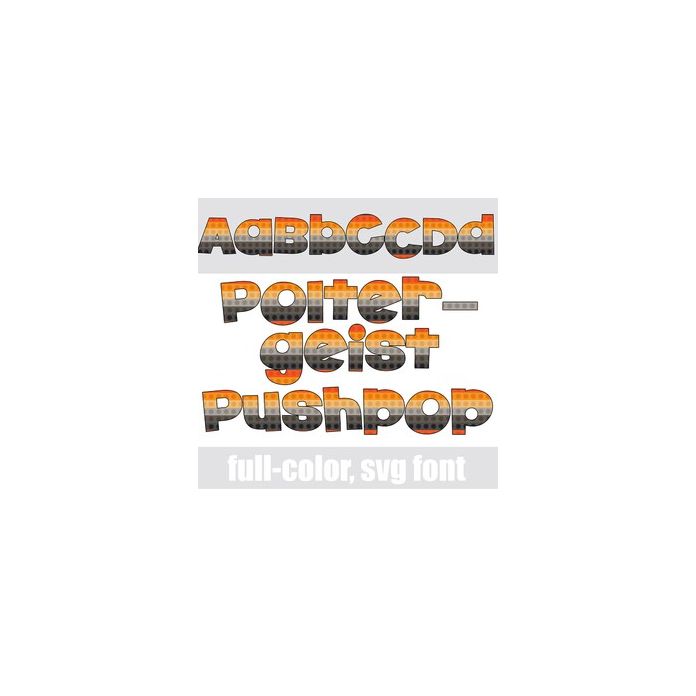
This full-color font features pushpops in a Halloween color palette. There is an alt case w/ additional colors you can access through your system or Silhouette's glyph map.